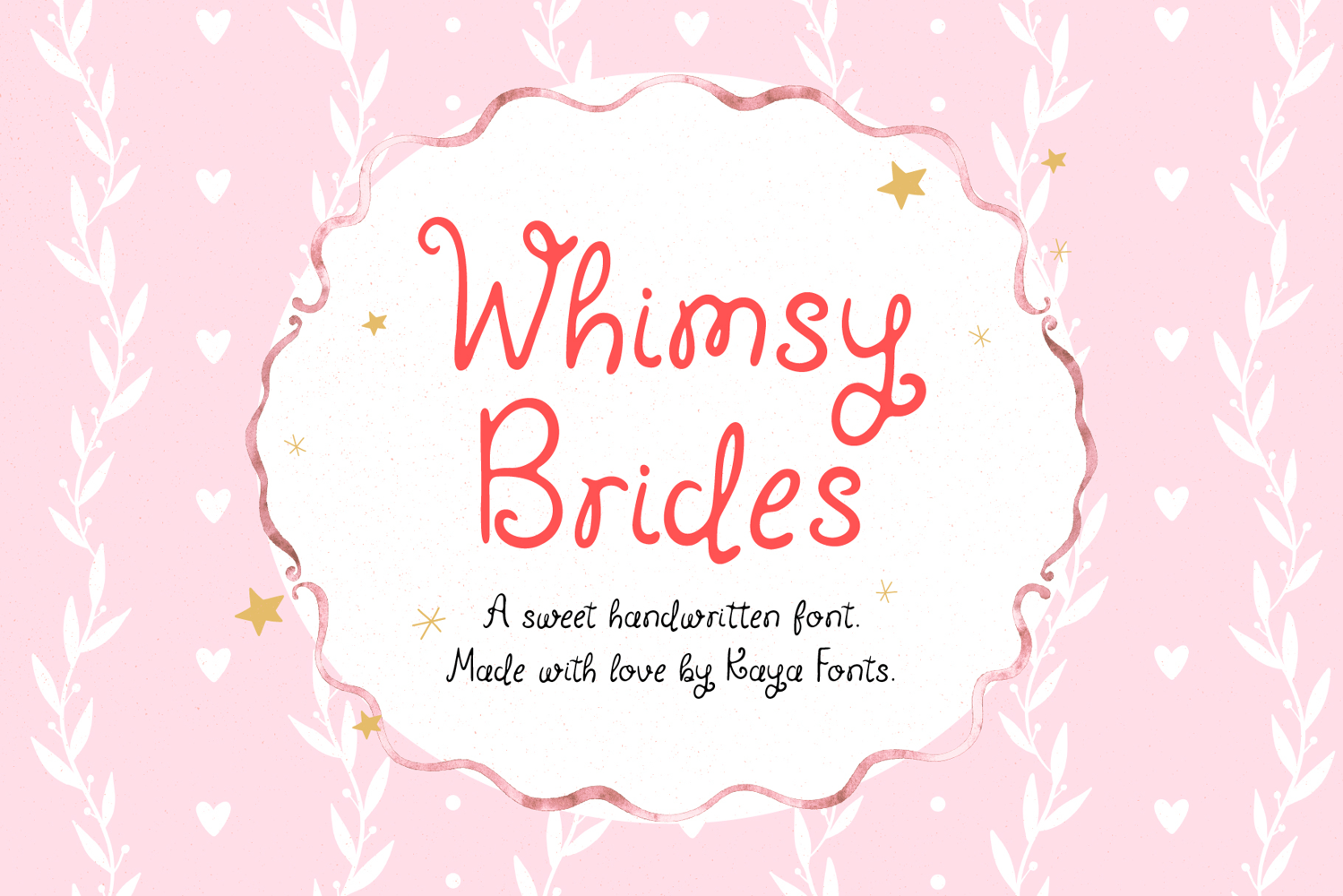
Whimsy Brides Handwritten Curly Script Font Wedding Font
Whimsy Brides Font is a whimsical handwritten script font with playful curls and a sweet handmade feel. Its romantic but casual style makes it perfect for wedding invitations, bridal shower designs, signage, menus, labels, packaging, apparel, and personalized gifts.